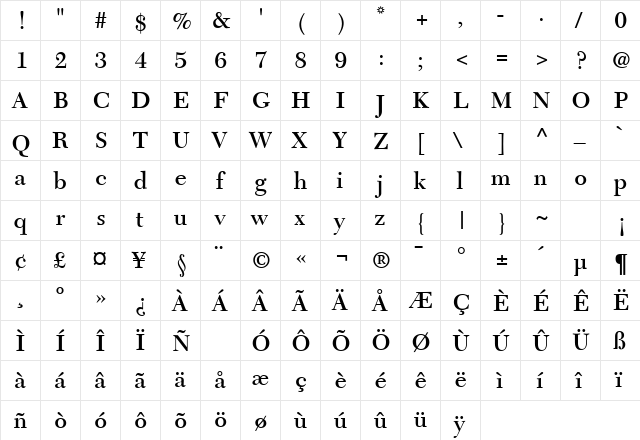
Tycoon SSi Semi Bold
VersionSmall Caps & Old Style Figures
Design Context for Tycoon SSi Typeface
Tycoon SSi is a composed and adaptable typeface that performs quietly and consistently across a wide range of design contexts. Its bold stroke weight gives it real presence on the page.